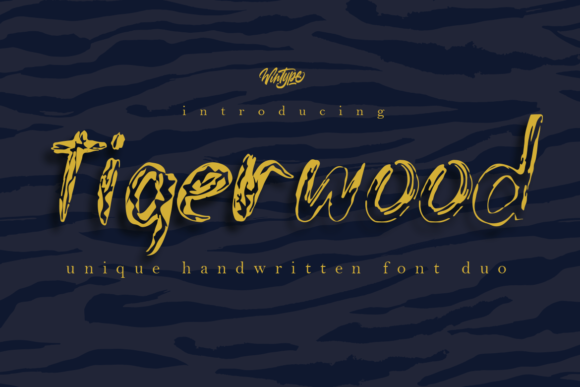
Introducing Tigerwood Font: Where Creativity Unleashes Its Wild Spirit
Step into nature's embrace with Tigerwood Font, a display font that dances with exuberance and grace. Inspired by the majestic stripes of the tiger, this captivating font captures a sense of adventure and untamed beauty. Its cursive strokes flow like a gentle breeze, beckoning your wildest dreams to take flight.
With Tigerwood Font, your designs will roar with individuality. Unleash your inner artist and transform ordinary words into captivating expressions. Tigerwood's unique charm will infuse your projects with a sense of wonder and allure. Let your imagination run wild as you craft stunning letterheads, mesmerizing titles, and elegant stationery that captivates and inspires.
Whether you're a seasoned designer or just starting your creative journey, Tigerwood Font is the perfect companion for unleashing your potential. Its versatility knows no bounds, making it a treasure trove of possibilities. From bold and playful headlines to graceful and enchanting logos, Tigerwood will add a touch of magic to every project you undertake.
Embrace the untamed spirit of the wild with Tigerwood Font. Its beautiful curves and striking lines will ignite your creativity and leave a lasting impression. Embrace the beauty of nature and let your imagination soar with Tigerwood Font.